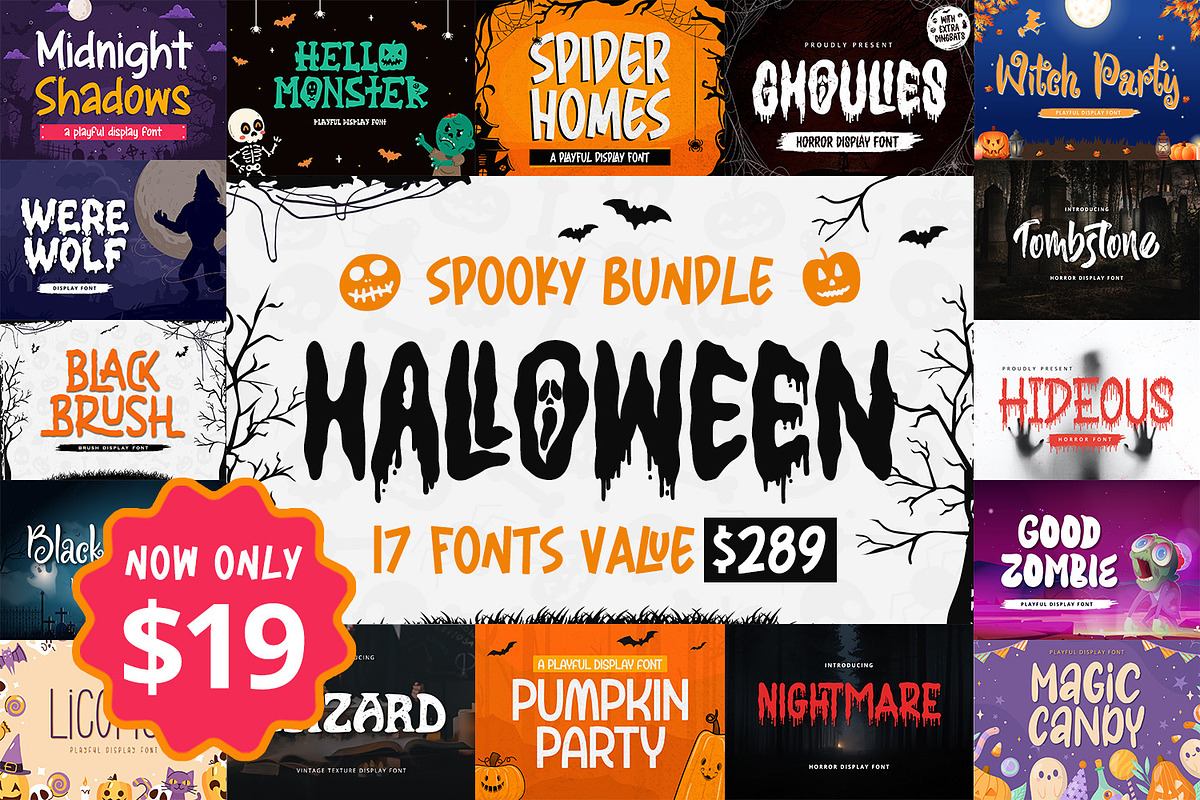
Spooky Bundle | 17 Halloween Fonts Free Download
Spooky Bundle | 17 Halloween Fonts Free Download is a hauntingly fun collection of creepy, quirky, and spine-tingling typefaces perfect for all your Halloween-themed creations. From dripping horror letters to playful pumpkin-inspired scripts, this bundle gives you everything you need to craft chilling invitations, eerie posters, spooky merch, and festive digital content.
Each font in the bundle is designed with its own ghostly character—ranging from creepy to cute—so whether you're going for full-on fright or family-friendly fun, you’ll find the perfect style. It’s a must-have toolkit for designers, teachers, crafters, and marketers during the spooky season.
Treat your designs to a scream-worthy upgrade with the spooky charm of this Halloween font collection!